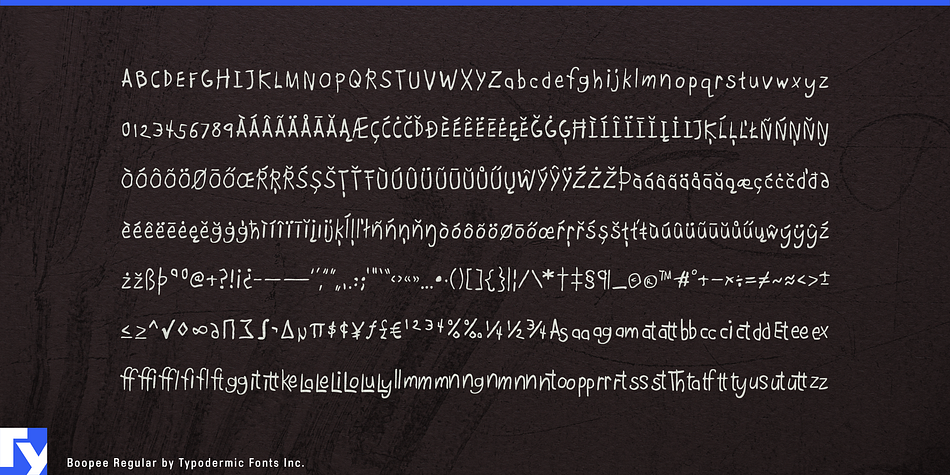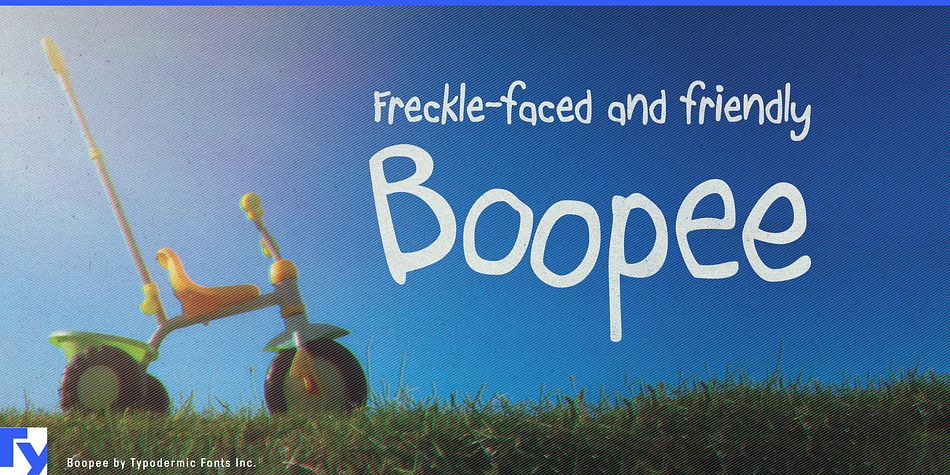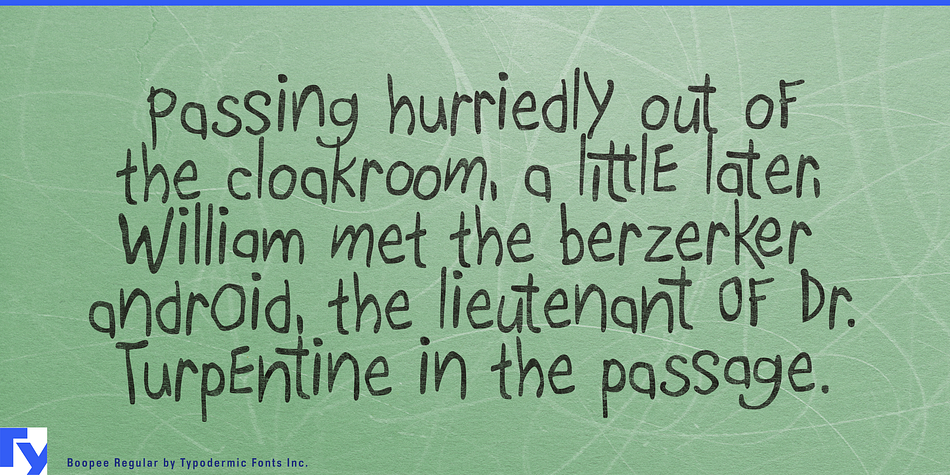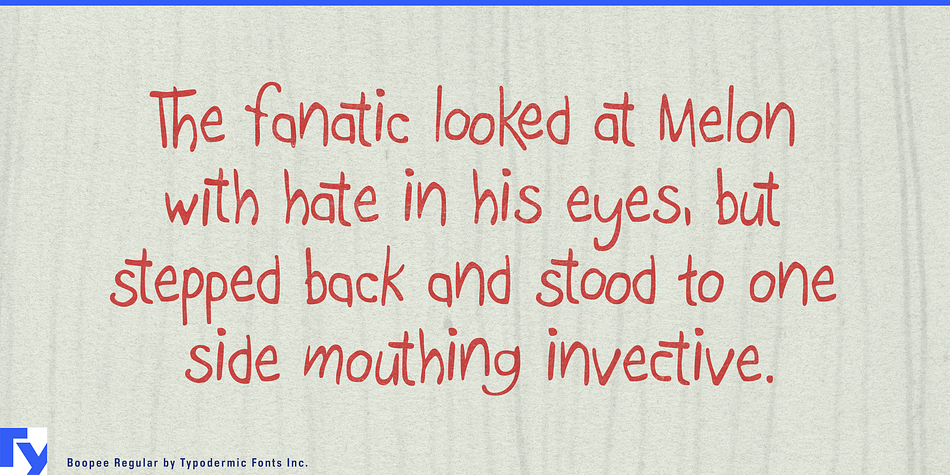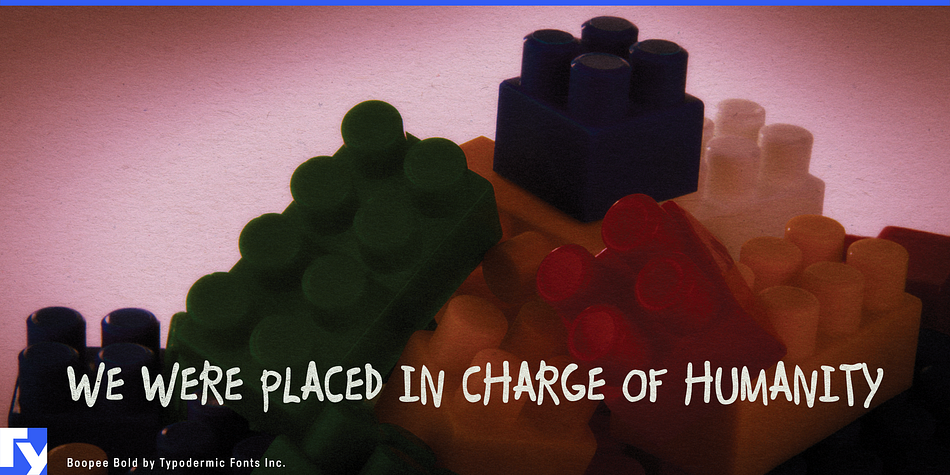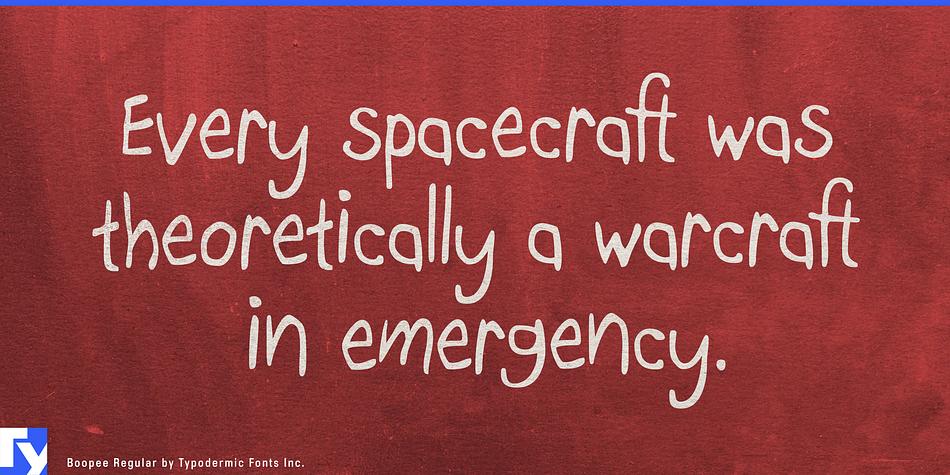
Boopee is a hand drawn and kids font family. This typeface has two styles and was published by Typodermic Fonts Inc.
Boopee’s flaws are part of its charm. It’s a personable typeface that’s messy yet easy to read. Some letter combinations will be substituted with unique custom combos if your application supports ligatures. It comes in both standard and bold versions. Most Latin-based European writing systems are supported, including the following languages. Afaan Oromo, Afar, Afrikaans, Albanian, Alsatian, Aromanian, Aymara, Bashkir (Latin), Basque, Belarusian (Latin), Bemba, Bikol, Bosnian, Breton, Cape Verdean, Creole, Catalan, Cebuano, Chamorro, Chavacano, Chichewa, Crimean Tatar (Latin), Croatian, Czech, Danish, Dawan, Dholuo, Dutch, English, Estonian, Faroese, Fijian, Filipino, Finnish, French, Frisian, Friulian, Gagauz (Latin), Galician, Ganda, Genoese, German, Greenlandic, Guadeloupean Creole, Haitian Creole, Hawaiian, Hiligaynon, Hungarian, Icelandic, Ilocano, Indonesian, Irish, Italian, Jamaican, Kaqchikel, Karakalpak (Latin), Kashubian, Kikongo, Kinyarwanda, Kirundi, Kurdish (Latin), Latvian, Lithuanian, Lombard, Low Saxon, Luxembourgish, Maasai, Makhuwa, Malay, Maltese, Māori, Moldovan, Montenegrin, Ndebele, Neapolitan, Norwegian, Novial, Occitan, Ossetian (Latin), Papiamento, Piedmontese, Polish, Portuguese, Quechua, Rarotongan, Romanian, Romansh, Sami, Sango, Saramaccan, Sardinian, Scottish Gaelic, Serbian (Latin), Shona, Sicilian, Silesian, Slovak, Slovenian, Somali, Sorbian, Sotho, Spanish, Swahili, Swazi, Swedish, Tagalog, Tahitian, Tetum, Tongan, Tshiluba, Tsonga, Tswana, Tumbuka, Turkish, Turkmen (Latin), Tuvaluan, Uzbek (Latin), Venetian, Vepsian, Võro, Walloon, Waray-Waray, Wayuu, Welsh, Wolof, Xhosa, Yapese, Zapotec Zulu and Zuni.